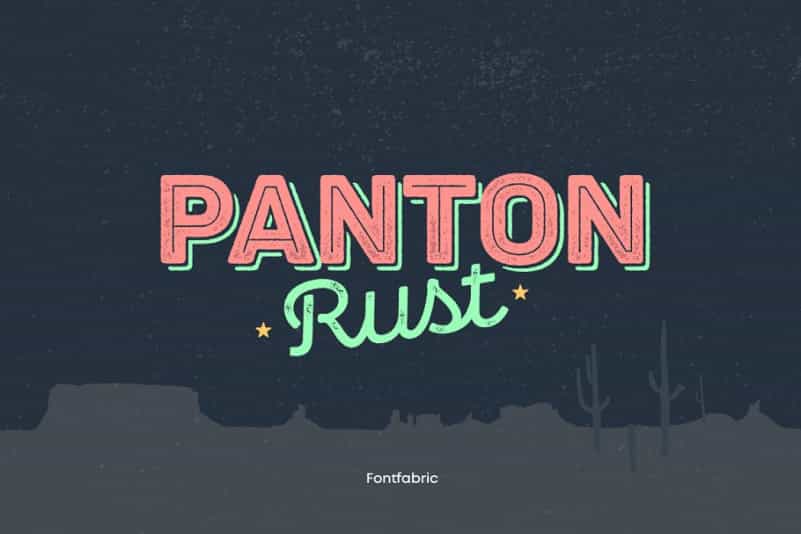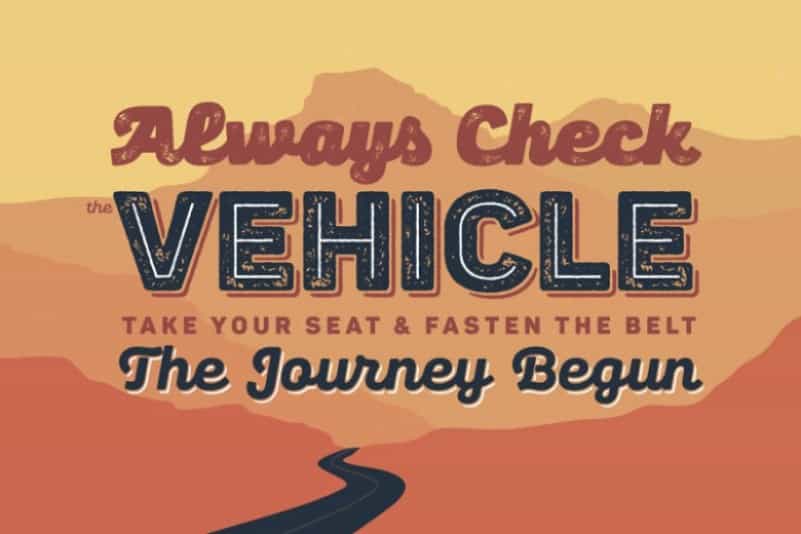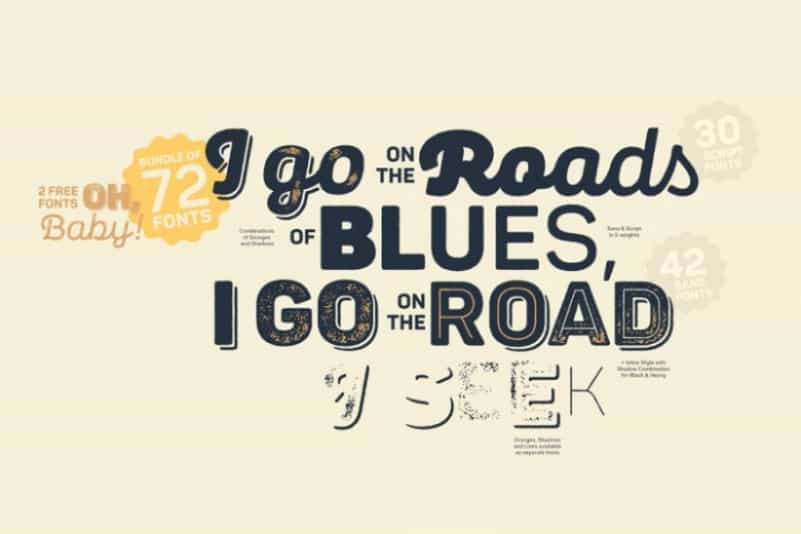
Panton Rust Font Family
Panton Rust script typeface is a script typeface with handwritten serifs that makes it look like a vintage typeface; it has girly, western, and vintage influences. It is designed and published by Fontfabric. Finally, the new product from Panton type collection is available in the market; Rust Bundle contains Panton Rust and accompanying font, Panton Rust Script Rust.